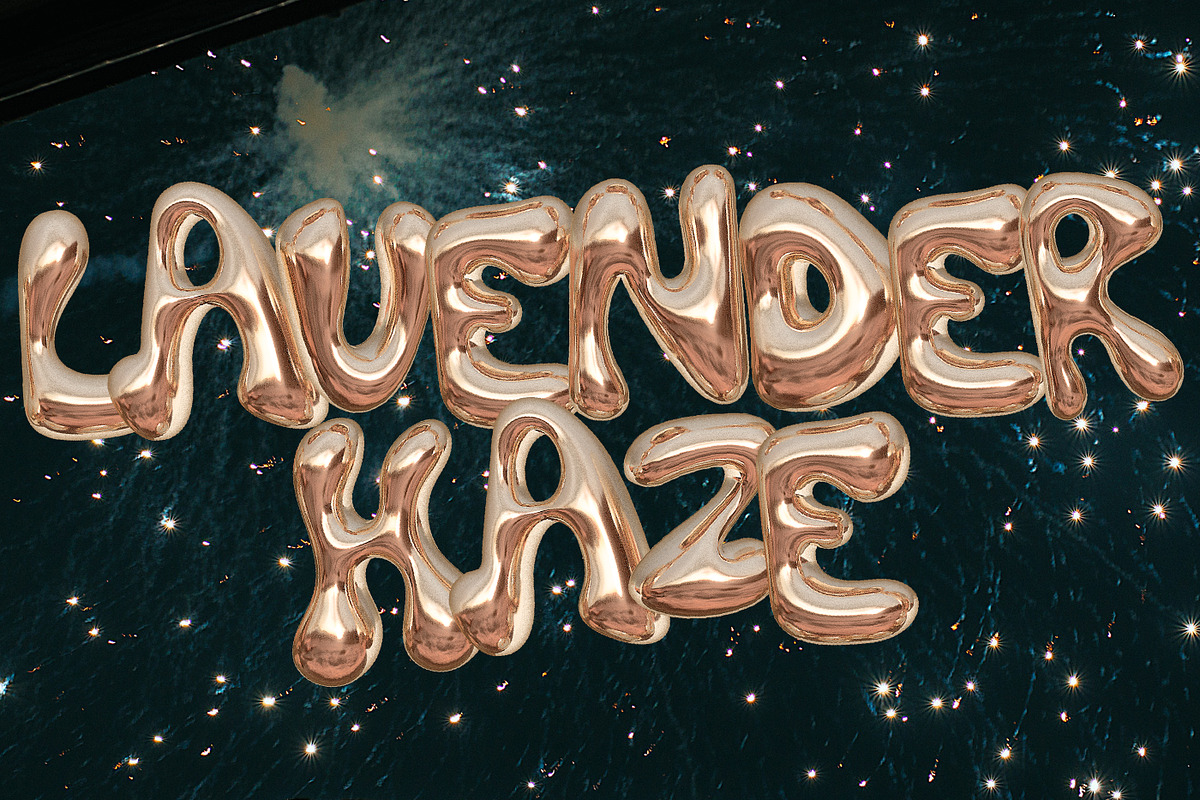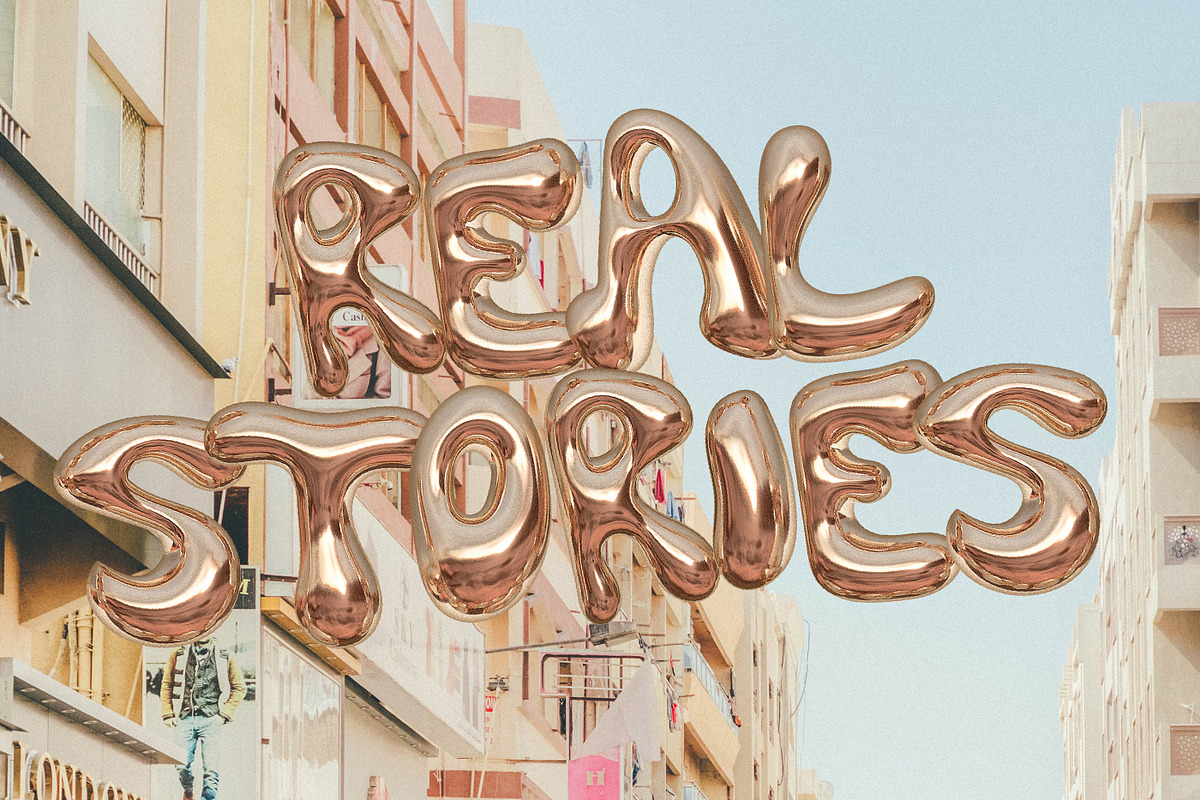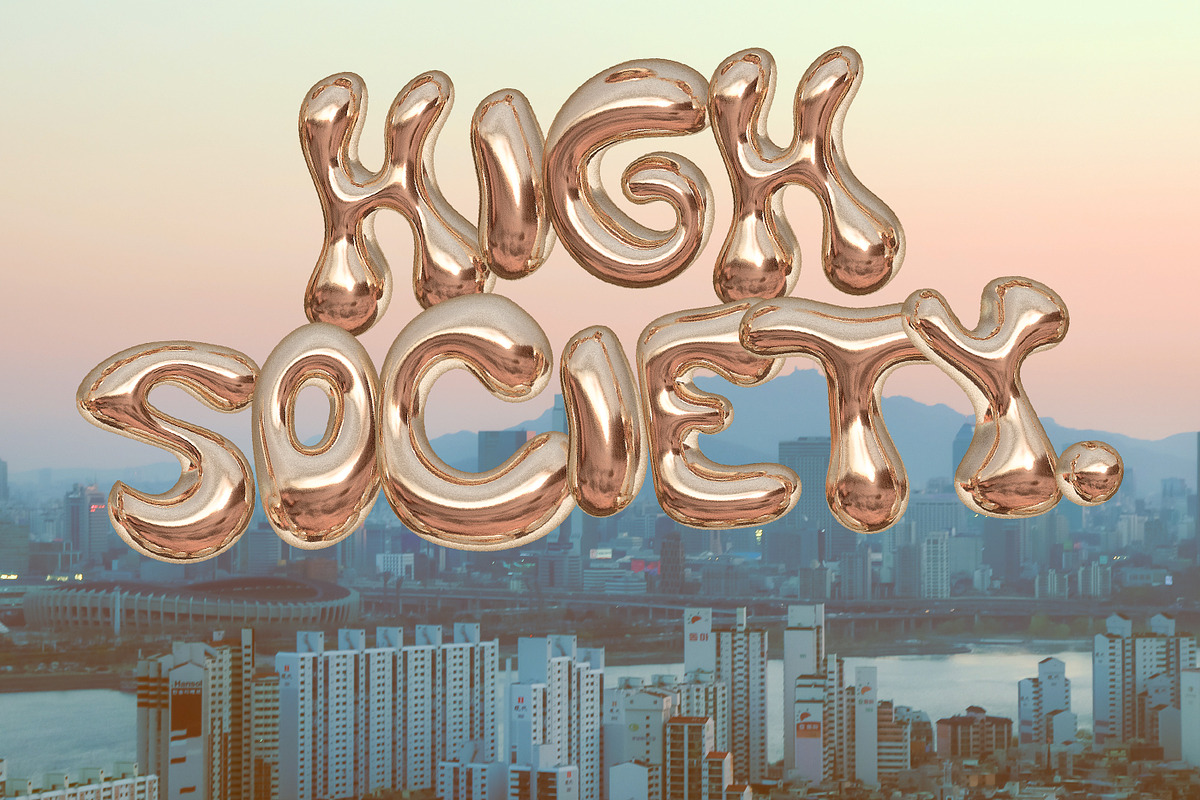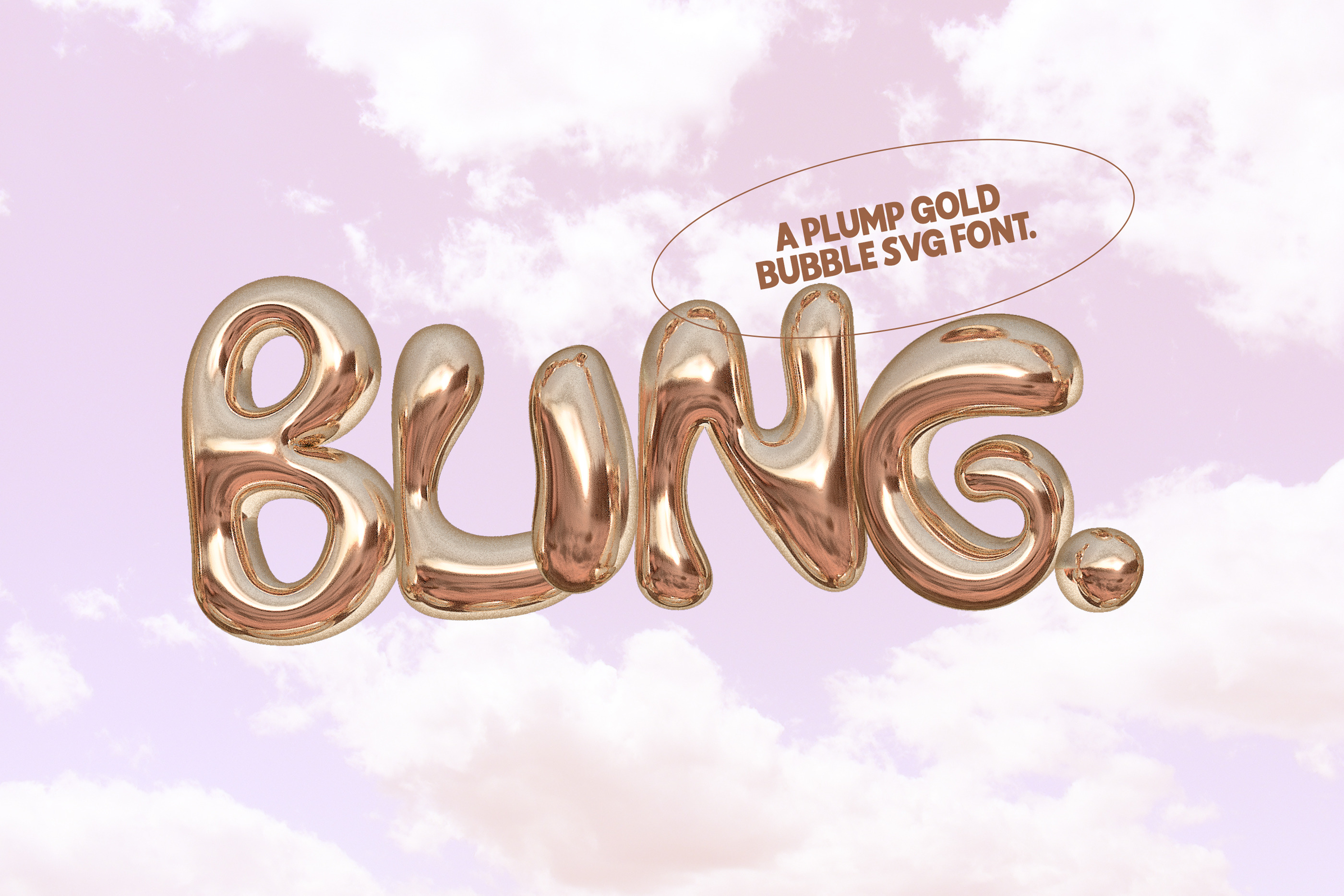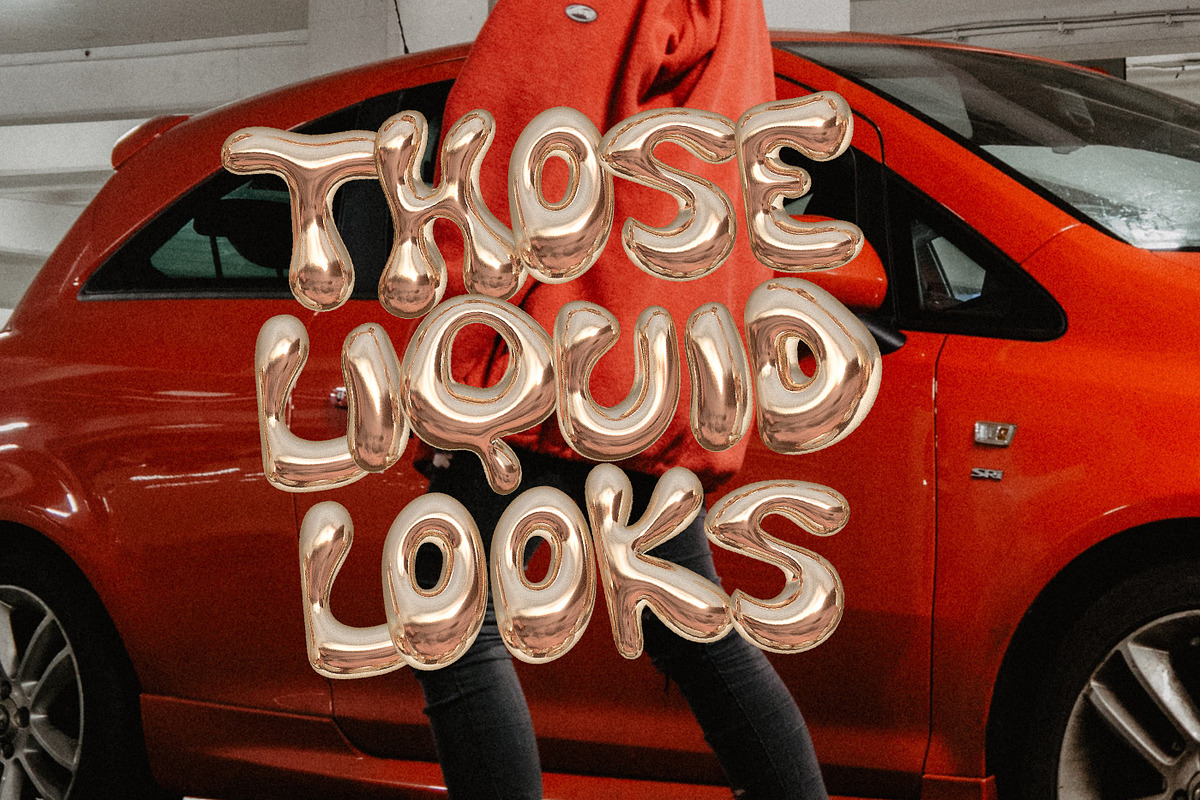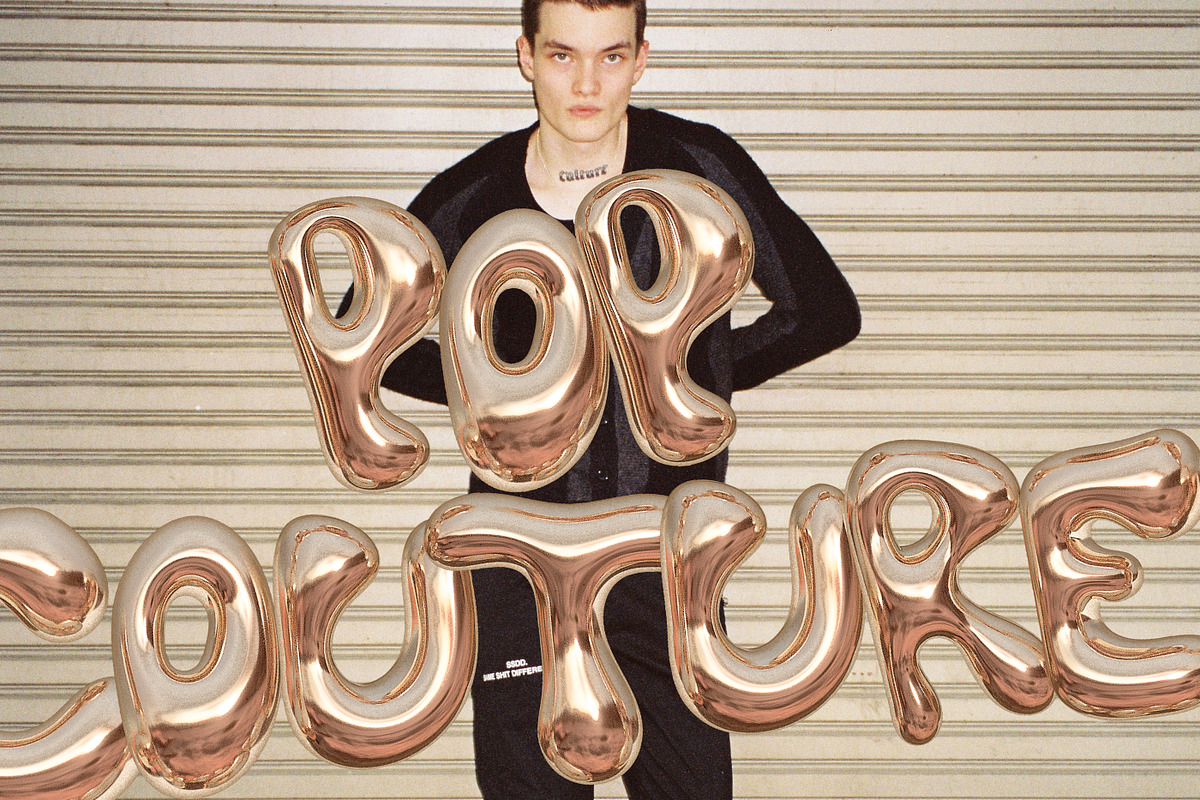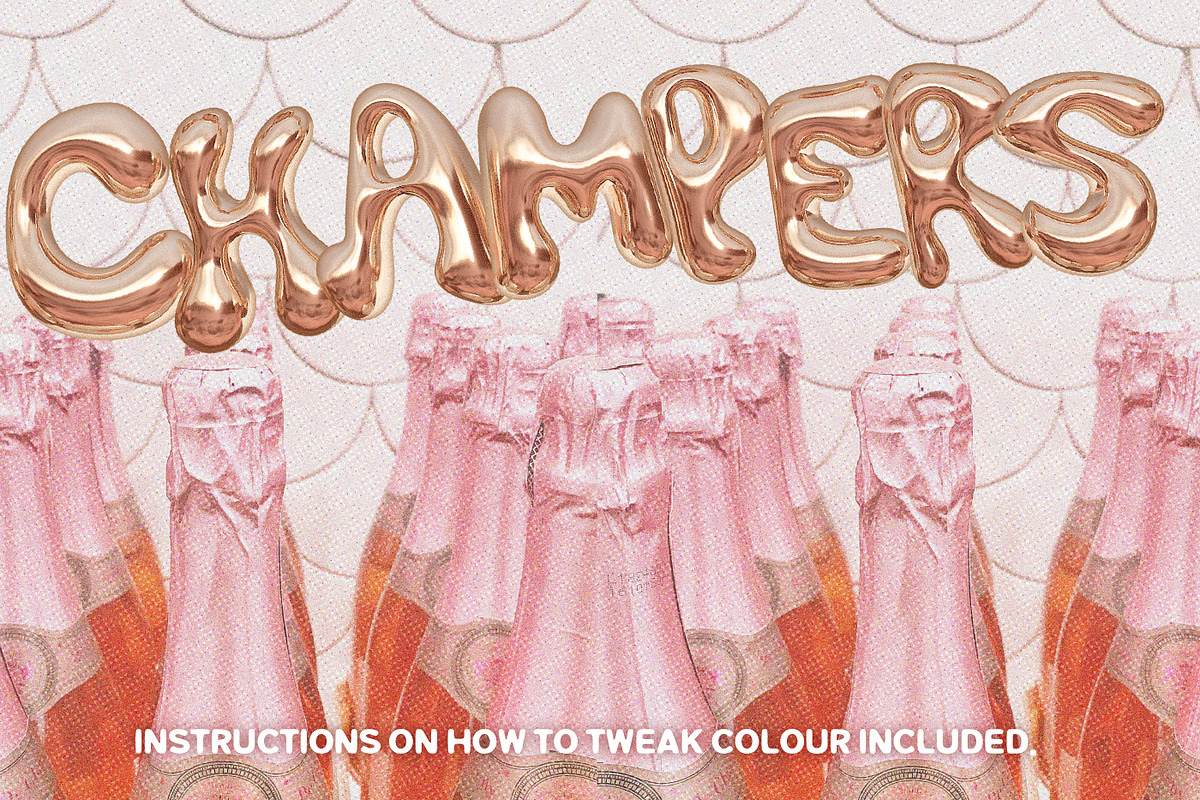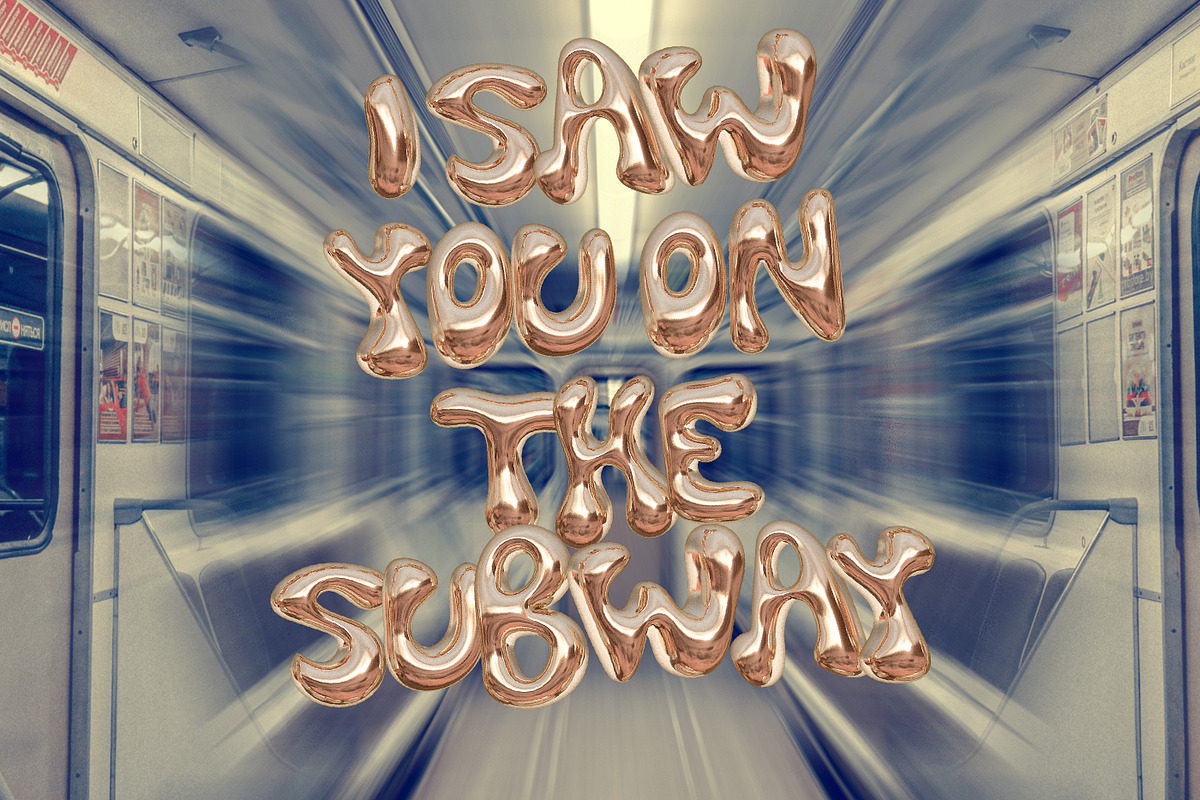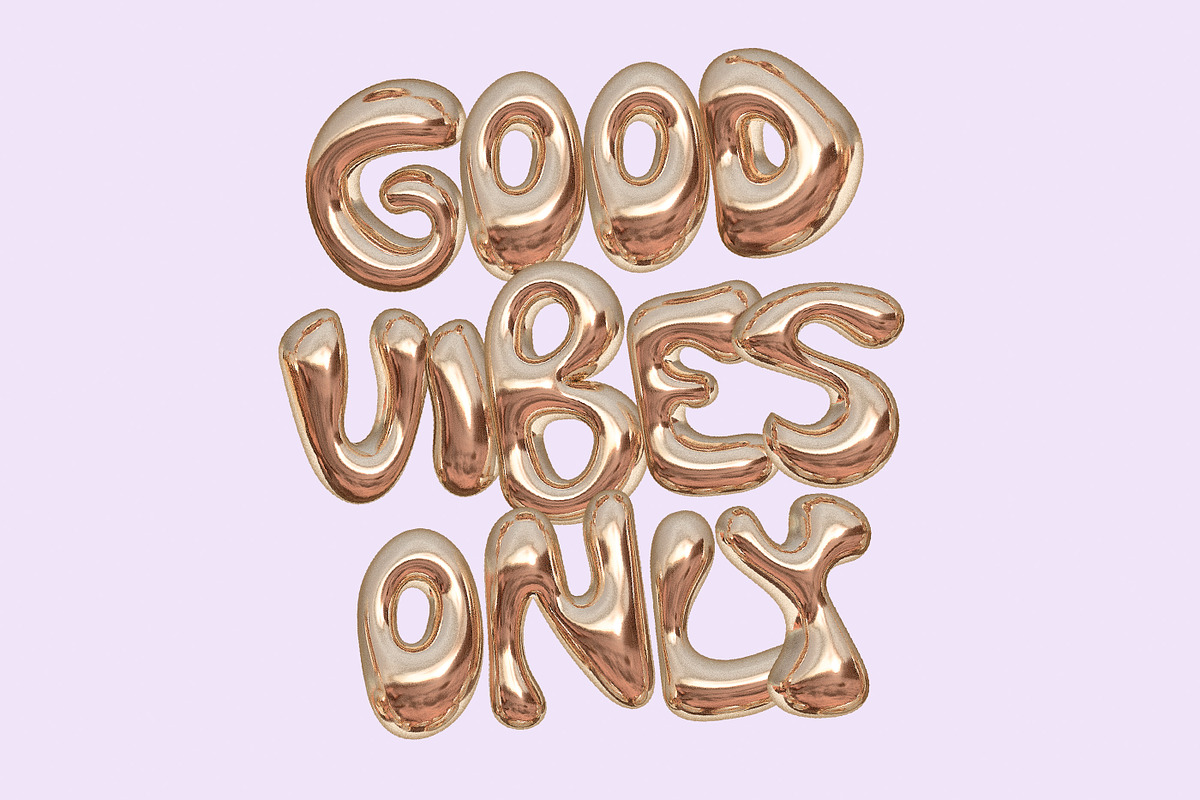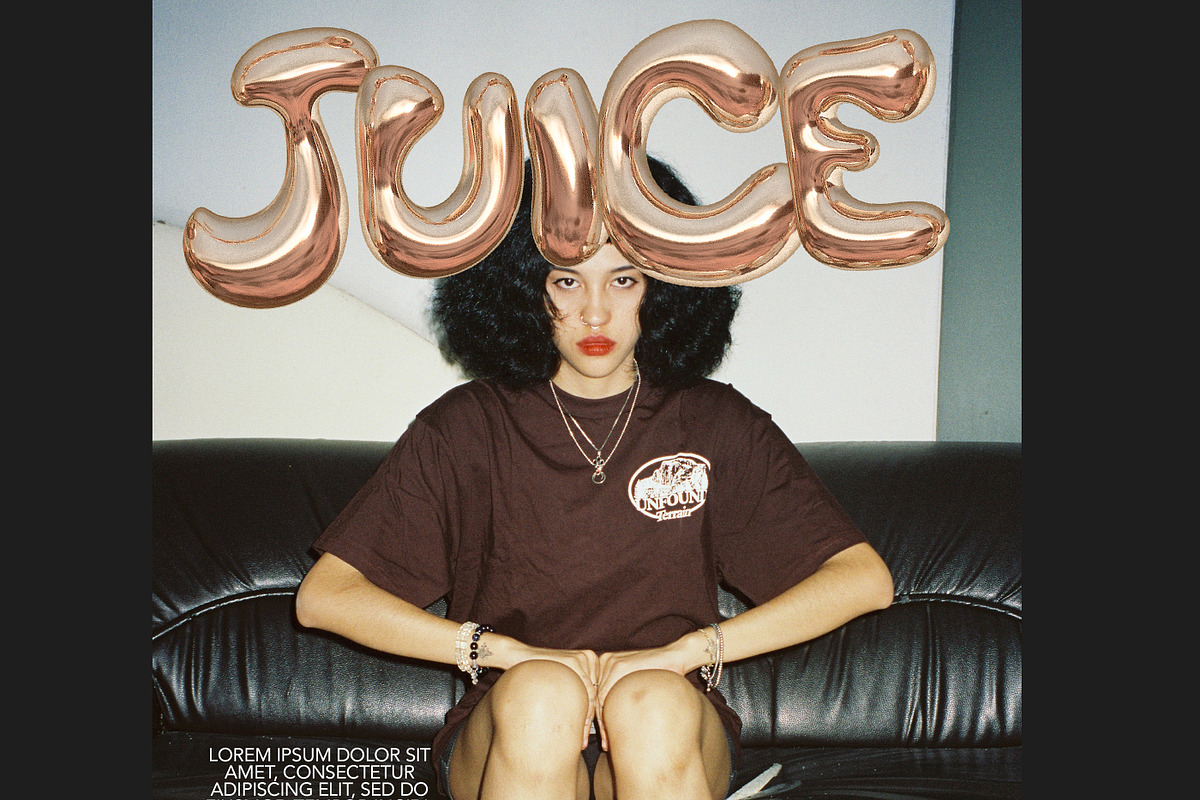
Bling - A Gold Balloon SVG Font
Say hello to BLING! A brazen gold 3D-style balloon SVG font ready to turn heads :) SVG fonts are rasterised bitmap-based image fonts - compatible only with Photoshop CC 2017, Illustrator CC 2018, or Procreate 4.3 (or newer).